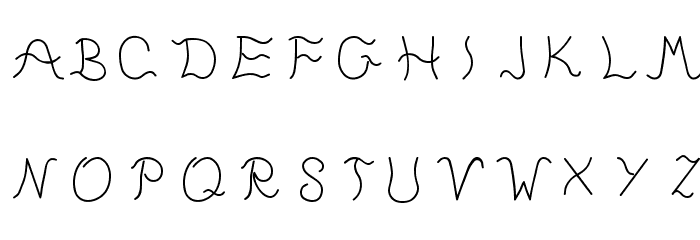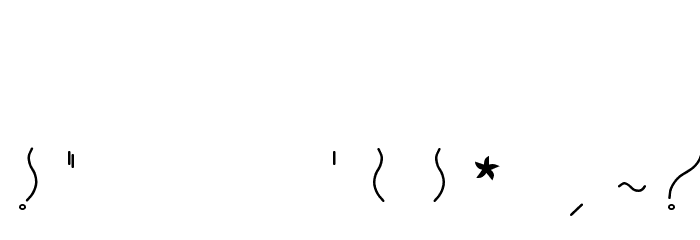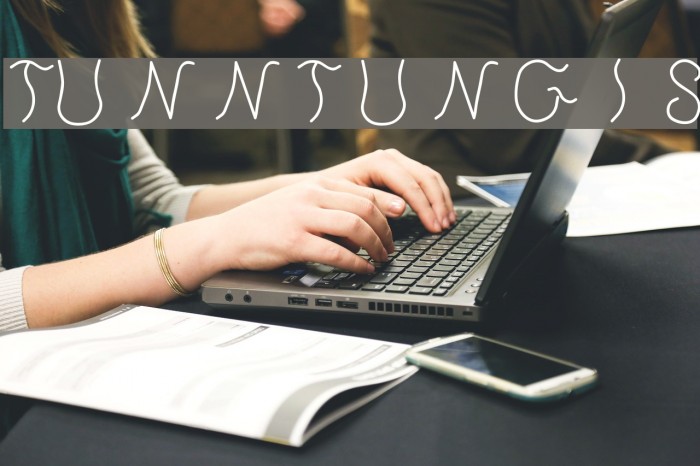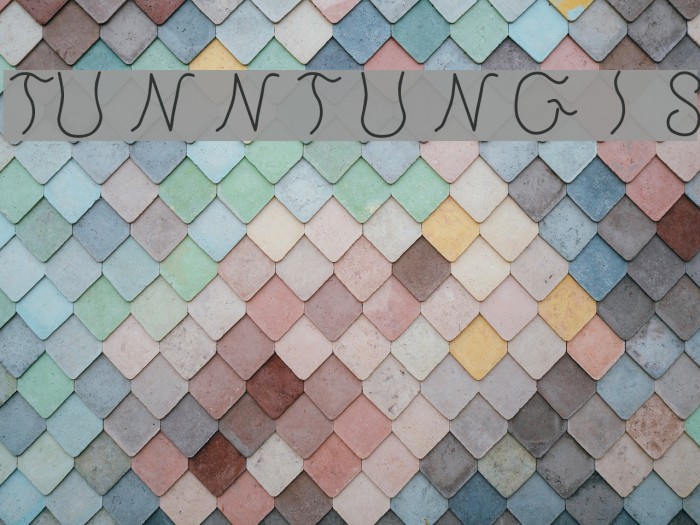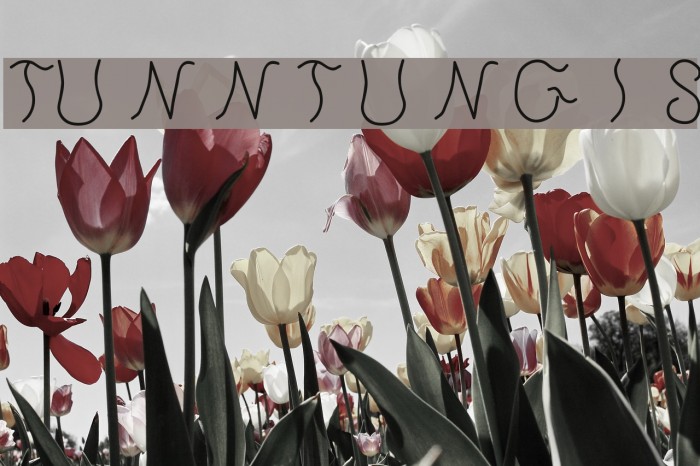
Tunntungis Font
This font features a whimsical and playful design with a handwritten style. The characters are crafted with smooth, flowing curves and a slightly irregular baseline, giving it a casual and artistic feel. The uppercase and lowercase letters maintain a consistent style, with unique flourishes that add personality to each character. The numerals and special characters are designed to match the overall aesthetic, ensuring a cohesive look across all text. This font is ideal for projects that require a touch of creativity and informality.
A whimsical, handwritten font with flowing curves and artistic flair.
- Proposed Projects: Perfect for greeting cards, invitations, children's books, and creative branding.
- Use Case: Headlines, Logos, Creative projects